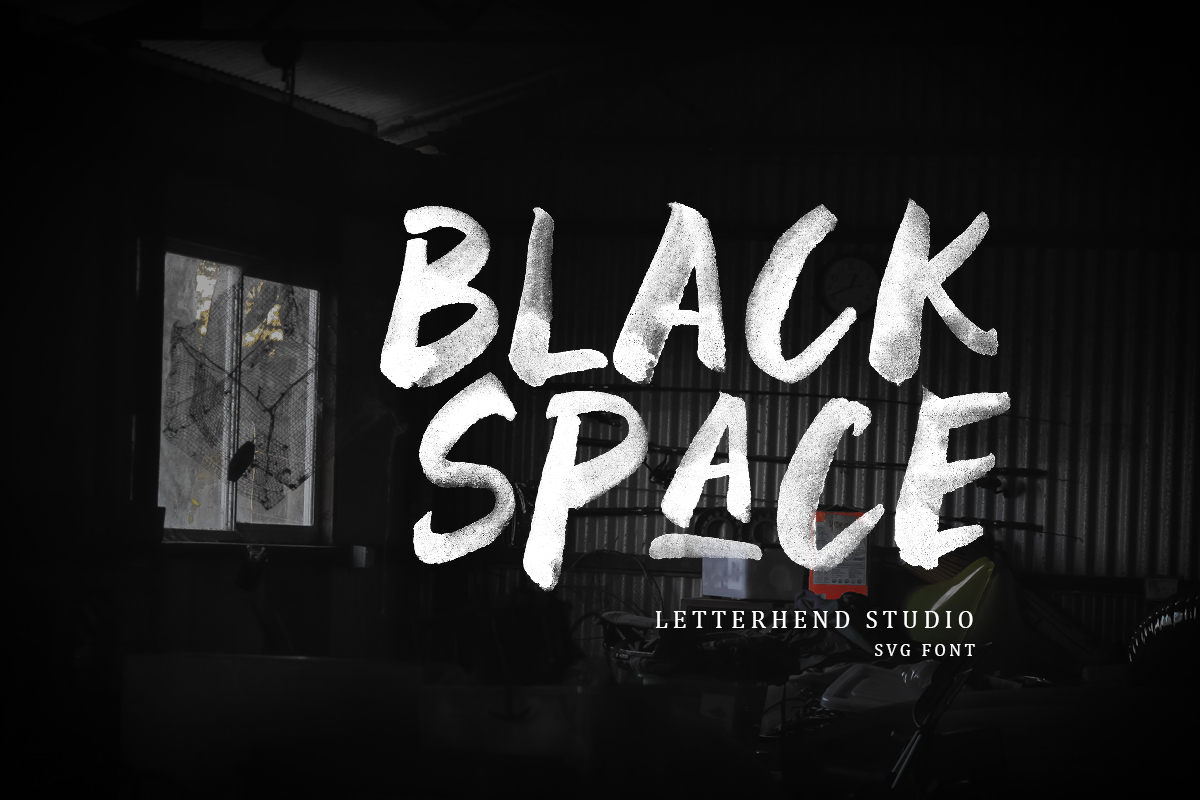
Black Space Font
Black Space Font is widely used in sci-fi movie titles, space exploration documentaries, astronomical observatory branding, video game interfaces, futuristic tech presentations, planetarium displays, aerospace company logos, and cosmic-themed educational materials.
Black Space Font is an exciting typeface that transports viewers into the infinite depths of the cosmos with its stellar design and otherworldly character. This font embodies the mystery and grandeur of space exploration, making it perfect for projects that want to convey innovation, discovery, and the limitless possibilities of the universe in their visual storytelling.
Black Space Font Free Download offers extraordinary visual depth for designers exploring themes of space, technology, and futuristic concepts. The font's celestial character and mysterious appeal create an immediate sense of wonder and scientific curiosity. This typeface excels in projects where imagination, exploration, and technological advancement must inspire audiences to think beyond earthly limitations.
The distinctive magnetism of Black Space Font lies in its ability to evoke the vast emptiness and brilliant stars of outer space through sophisticated typography. Each letterform has been meticulously crafted to suggest both the infinite darkness and brilliant illumination found in cosmic environments. The font's balanced contrast and strategic spacing create visual rhythm that mirrors the celestial dance of planets and stars.
Science organizations and entertainment companies choose Black Space Font for its power to communicate wonder and scientific achievement. The typeface works brilliantly in space agency communications, science museum exhibits, astronomy education materials, and space-themed entertainment content. Its cosmic aesthetic appeals to audiences fascinated by exploration, discovery, and the mysteries of the universe.
The stellar engineering of Black Space Font includes advanced character mapping and optimized spacing that ensures perfect readability against both dark and bright backgrounds. These astronomical specifications make it particularly suitable for planetarium projections, space simulation interfaces, and high-contrast applications where clarity and dramatic impact must coexist in perfect harmony.